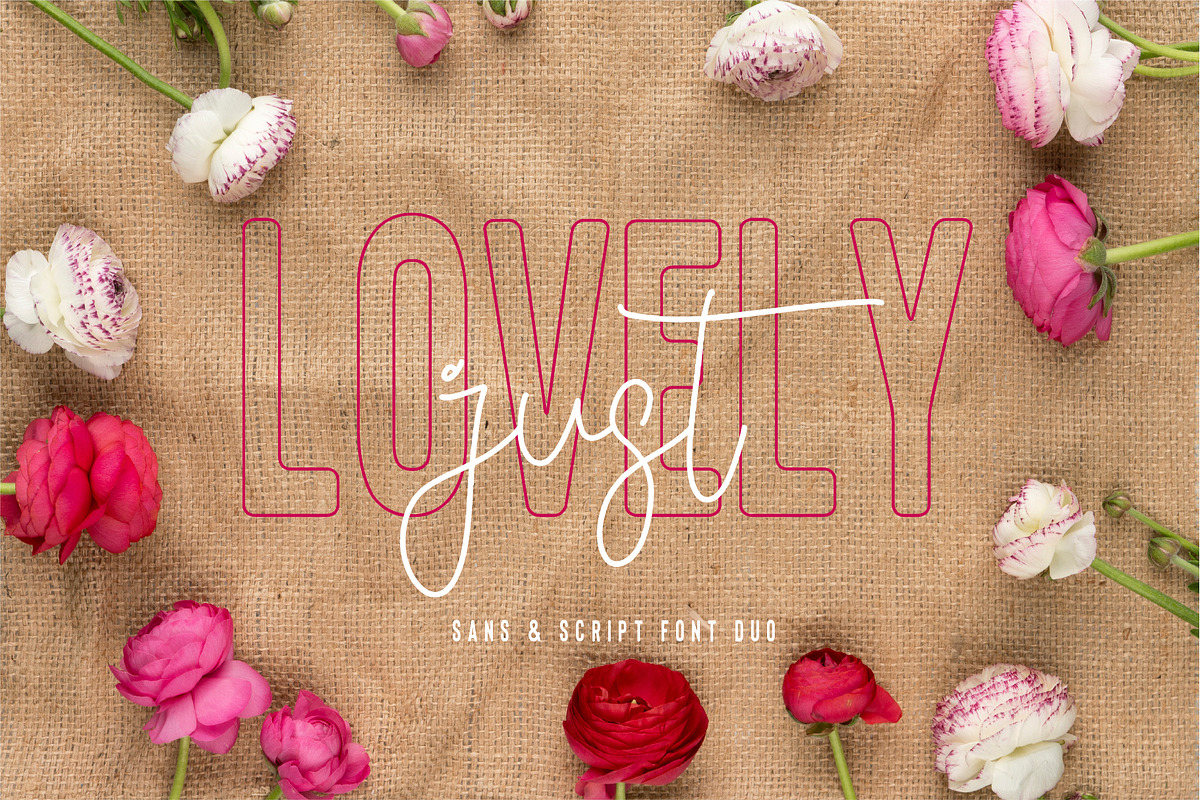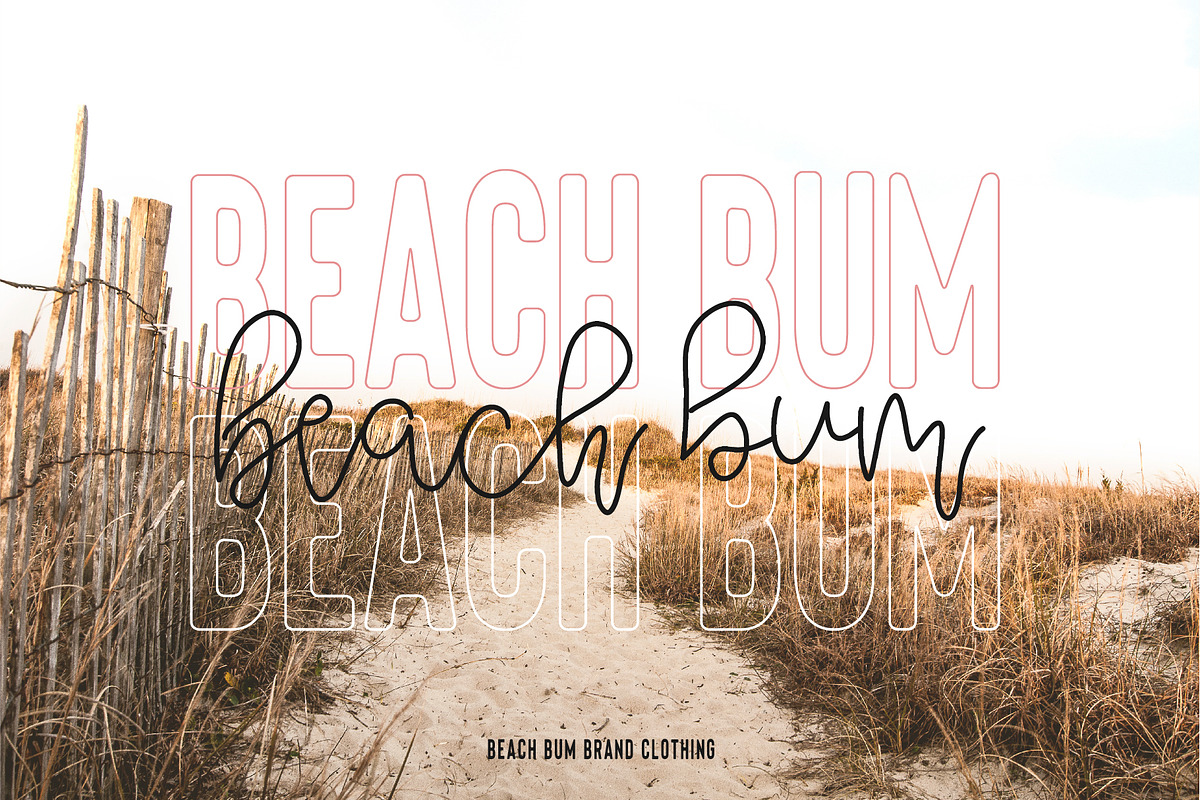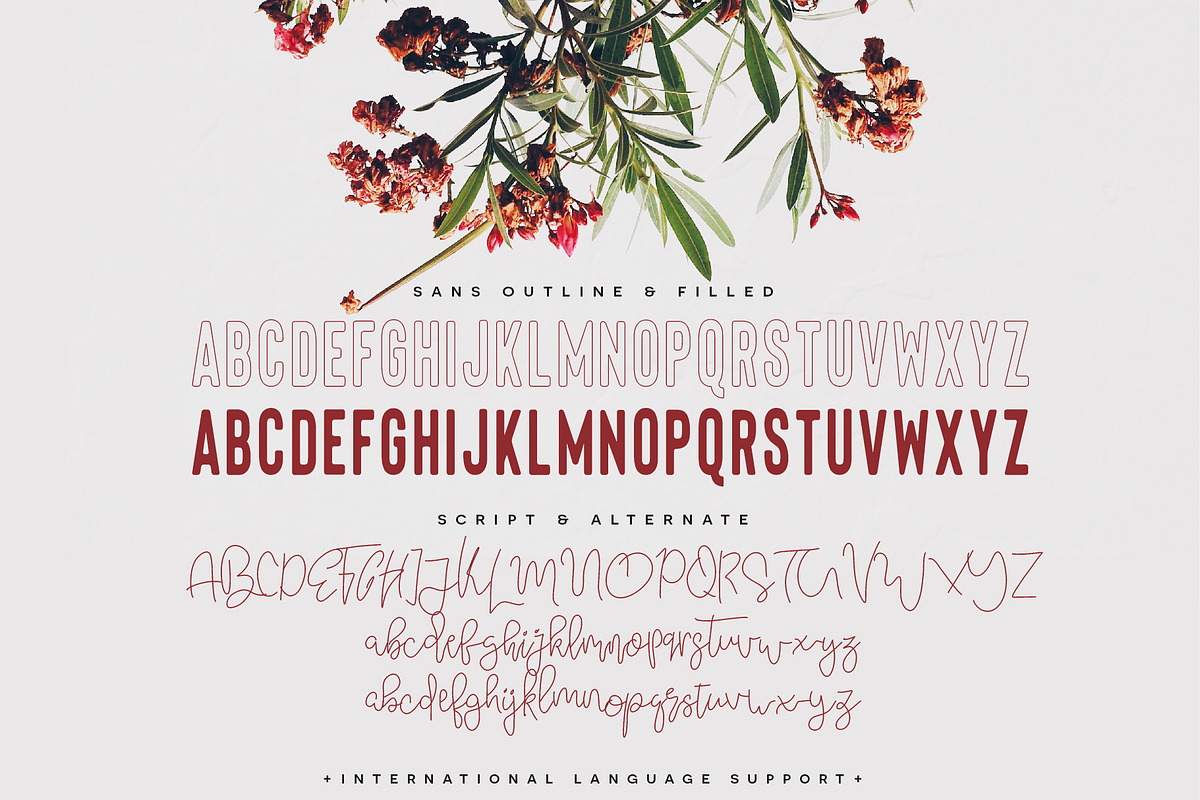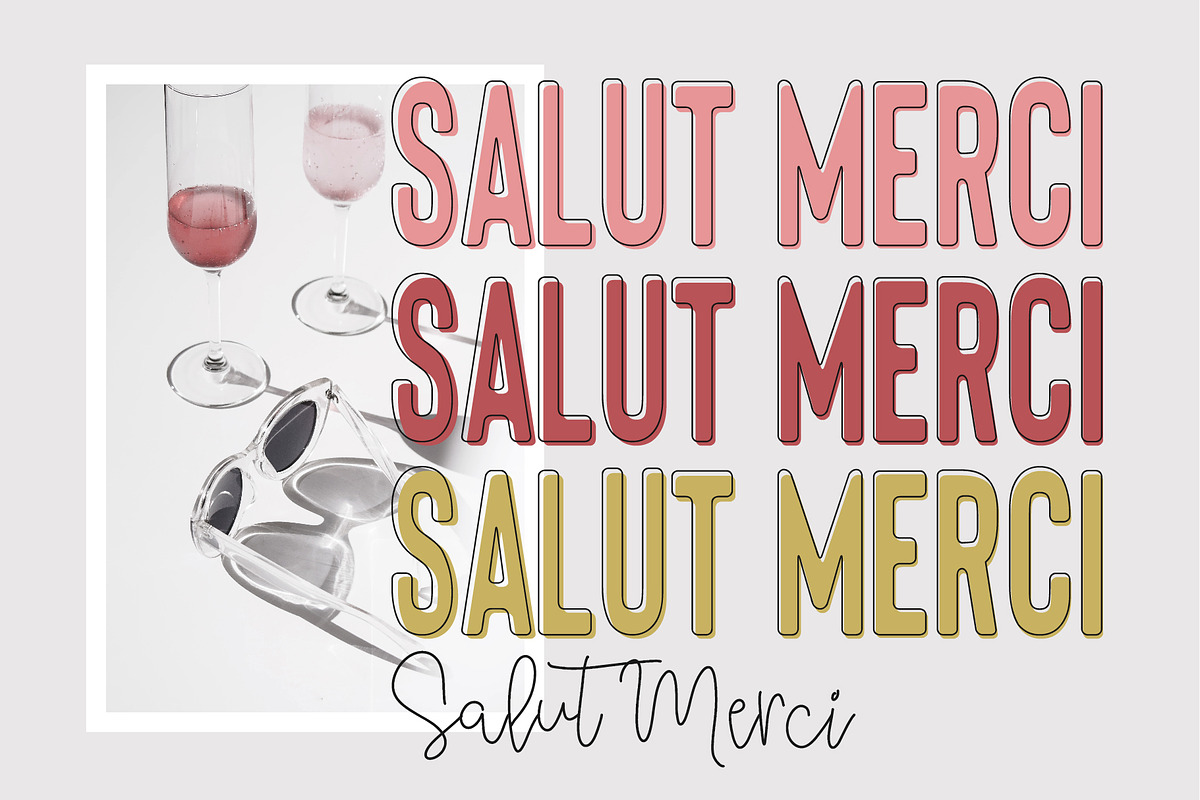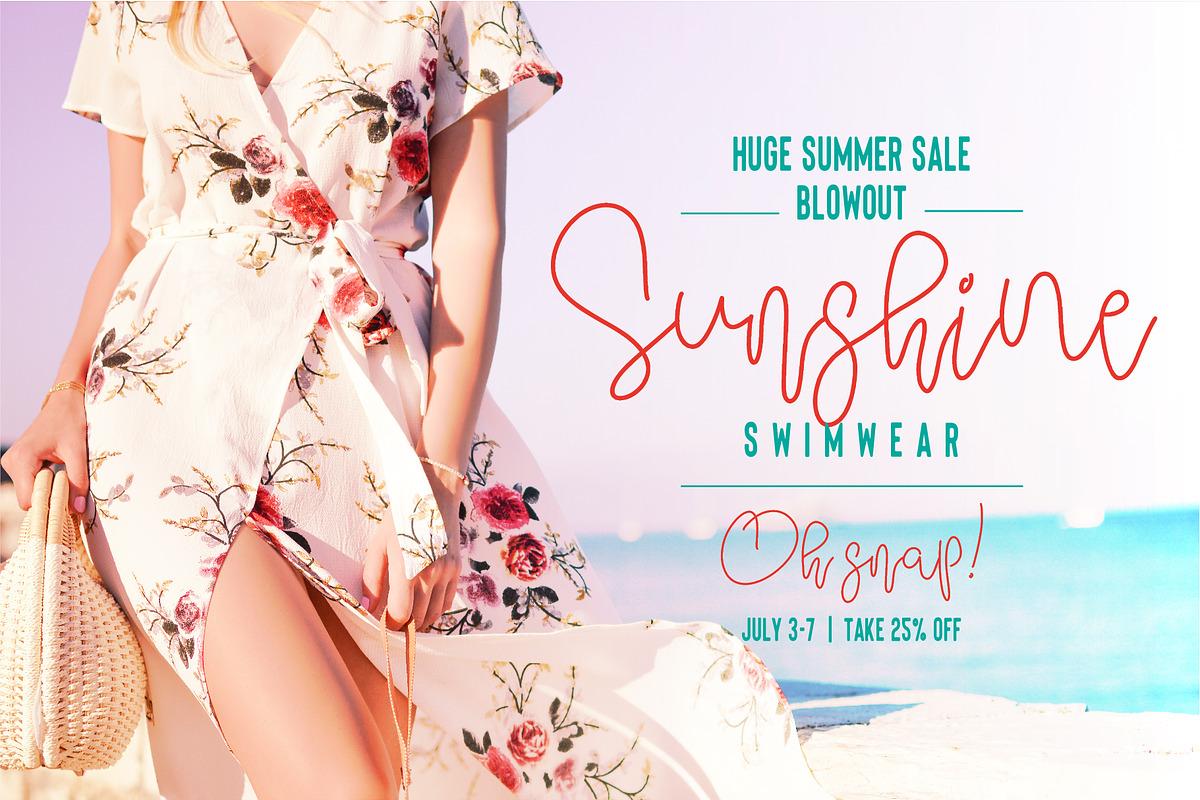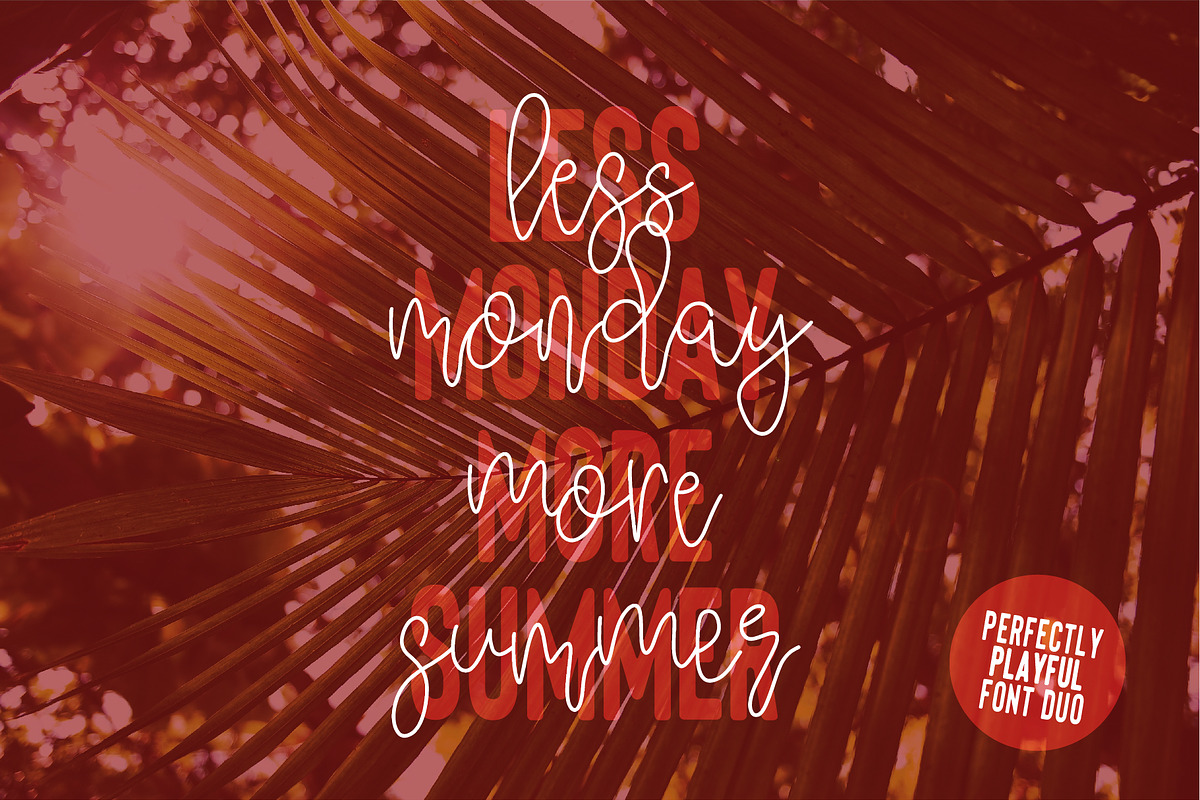
Floral Thunder Font Duo
Floral Thunder is the perfect mix-n-match font duo. It's the stylish and carefree font pack you've been looking for! The script comes with a full pack of alternate letters to choose from. And the sans comes with a fill and outline version giving you tons of layout options to play with. Plus it's chalked full of opentype feautures such as language support, etc.
Over 100 Bonus Glyphs including International Language Support (English, French, Spanish, German, Polish, Italian, Portuguese, Latin, & More)